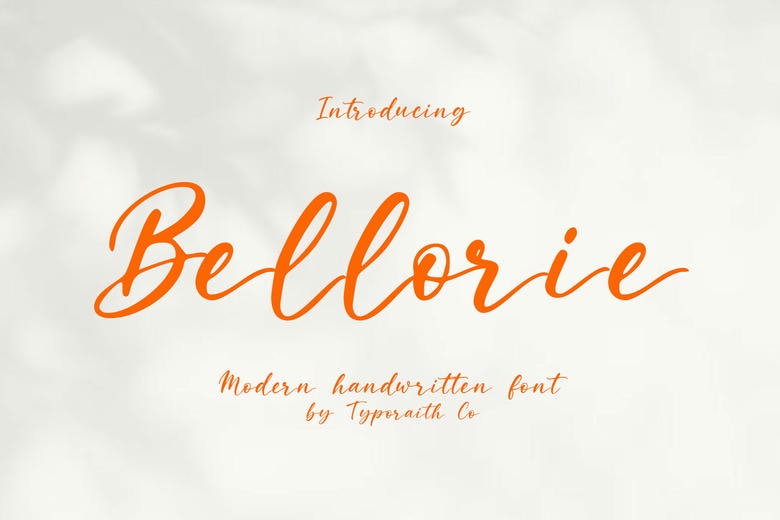
Bellorie Font
Bellorie is a modern handwritten script font that adds elegance and personality to your creative work. Its smooth strokes and natural style give your designs a relaxed yet refined feel.
Bellorie works well for branding, logos, wedding invitations, social media graphics, product packaging, quotes, stationery, and more. It brings a warm, stylish touch that makes your designs stand out.
Bellorie looks like real handwriting and is easy to read, so it’s a good choice for both personal and commercial projects.
Bellorie Handwritten Script Font